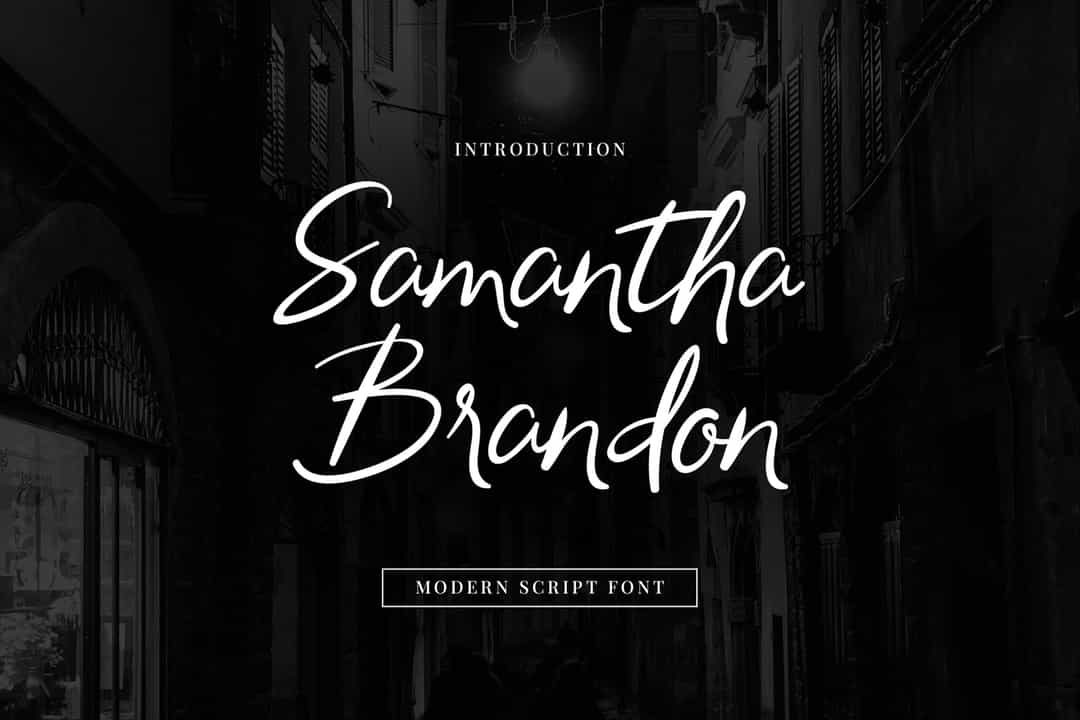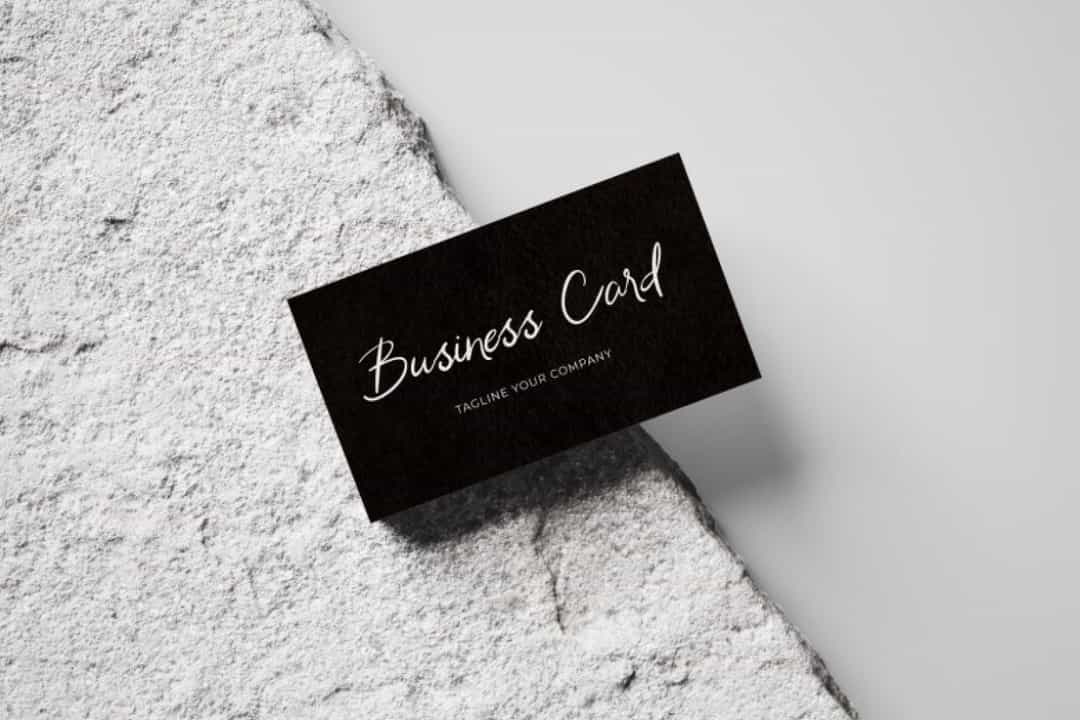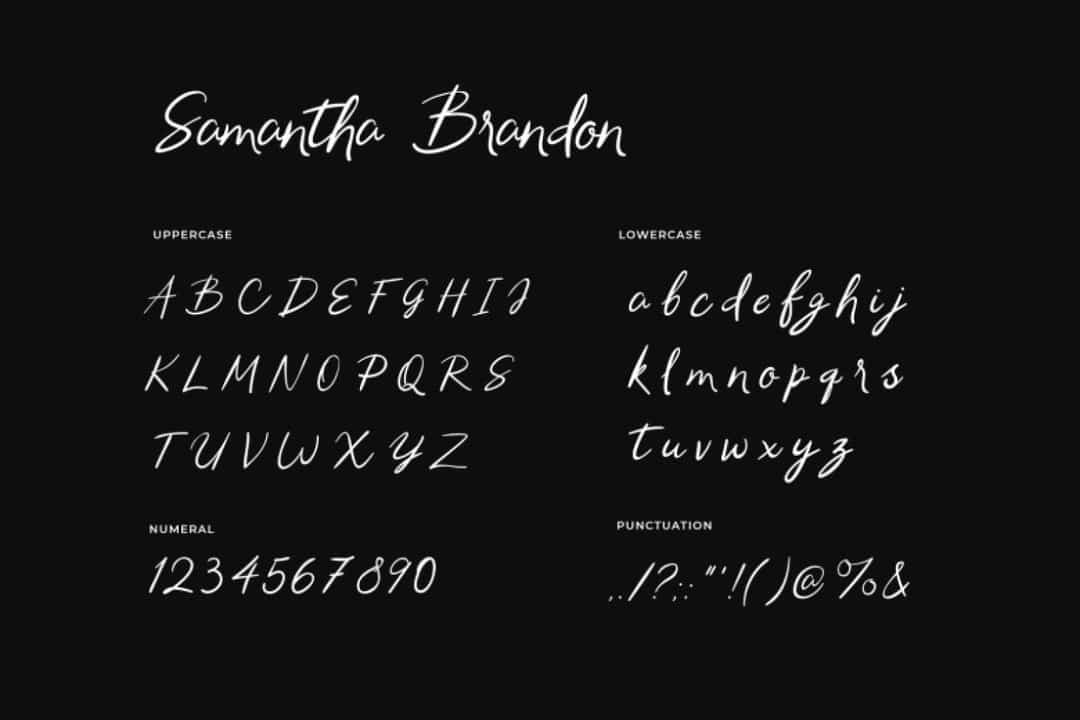
Samantha Brandon is a beautiful signature font that has a natural and smooth flow to it and the ligature will give the impression of handwritten text. This Open Type feature makes this font to be more natural looking! This Font is perfect for labels on the social medias such as Instagram, using quotes or any form of writing whether in short or long forms such as books or Magazine.